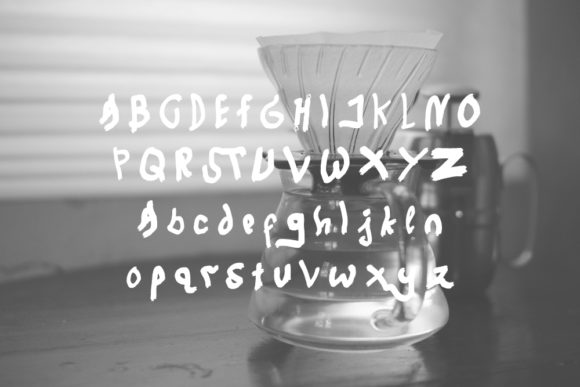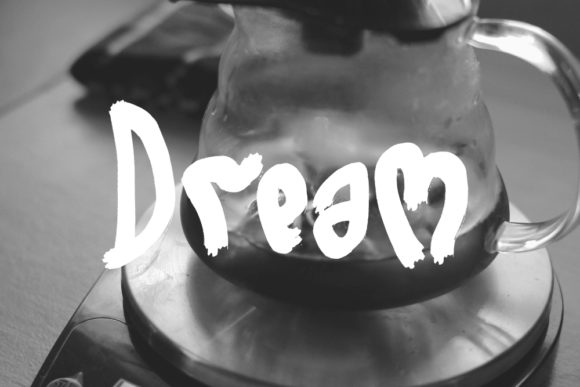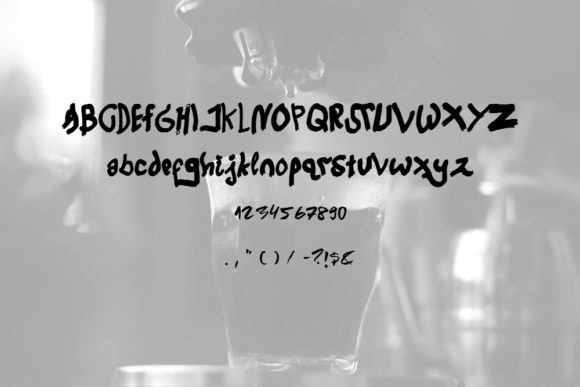
Introducing Handhayani Font: A Bold and Versatile Handwritten Style
Are you tired of using the same old fonts in your designs? Look no further than Handhayani, a bold handwritten font that’s perfect for adding a touch of personality to your projects. With its casual charm and down-to-earth feel, Handhayani is a versatile font that can be used in a variety of contexts, from busy backgrounds to standalone headlines.
The Characteristics of Handhayani Font
Handhayani is a bold handwritten font that’s designed to make a statement. Its casual, laid-back style makes it appear wonderfully down-to-earth and readable, even in smaller sizes. The font’s bold lines and curvaceous shapes give it a unique personality that’s both playful and sophisticated.
One of the standout features of Handhayani is its versatility. Whether you’re using it on a busy background or as a standalone headline, this font is sure to grab attention and make your design stand out. Its bold lines and clear typography make it easy to read, even from a distance.
Using Handhayani in Your Designs
So, how can you use Handhayani in your designs? The possibilities are endless! Here are a few ideas to get you started:
- Headlines and Titles: Use Handhayani as a headline or title font to add a touch of personality to your designs. Its bold lines and curvaceous shapes make it perfect for grabbing attention and making a statement.
- Body Text: While Handhayani is bold and attention-grabbing, it’s also surprisingly readable. Use it as a body text font for a more casual, laid-back feel.
- Signage and Posters: Handhayani is a perfect font for signage and posters, where its bold lines and clear typography can be seen from a distance.
- Branding and Packaging: Use Handhayani as a font for your brand or product packaging to add a touch of personality and whimsy.
The Benefits of Using Handhayani
So, why should you choose Handhayani for your designs? Here are just a few benefits of using this versatile font:
- Unique Personality: Handhayani has a unique personality that’s both playful and sophisticated. It adds a touch of whimsy to your designs and helps them stand out from the crowd.
- Versatility: Handhayani can be used in a variety of contexts, from busy backgrounds to standalone headlines. Its bold lines and clear typography make it easy to read, even in smaller sizes.
- Readability: Despite its bold and attention-grabbing style, Handhayani is surprisingly readable. Its clear typography and simple shapes make it easy to read, even from a distance.
Tips for Using Handhayani Effectively
Here are a few tips for using Handhayani effectively in your designs:
- Use it boldly: Handhayani is a bold font, so don’t be afraid to use it boldly. Experiment with different sizes and colors to make it stand out.
- Pair it with other fonts: Handhayani can be paired with other fonts to create a unique and interesting contrast. Try pairing it with a clean sans-serif font for a bold and modern look.
- Experiment with colors: Handhayani looks great in a variety of colors, from bold and bright to soft and pastel. Experiment with different colors to find the one that works best for your design.
Handhayani is a bold and versatile handwritten font that’s perfect for adding a touch of personality to your designs. Its casual charm and down-to-earth feel make it a great choice for a wide range of projects, from signage and posters to branding and packaging. With its unique personality, versatility, and readability, Handhayani is a font that’s sure to grab attention and make your designs stand out.